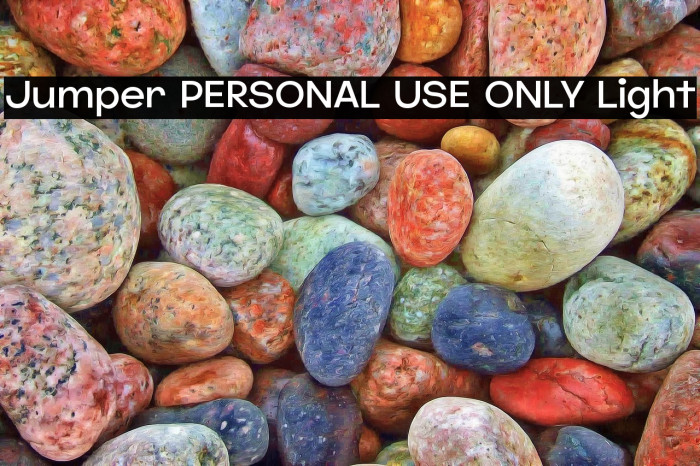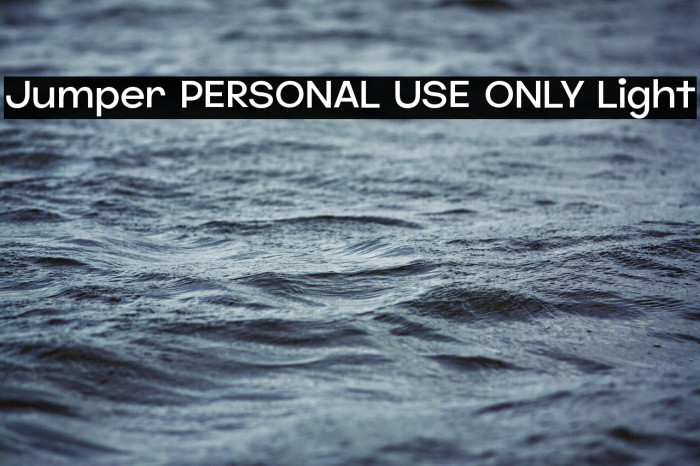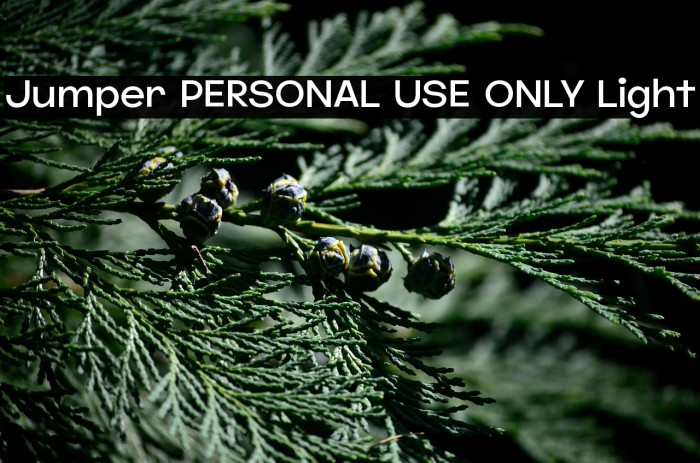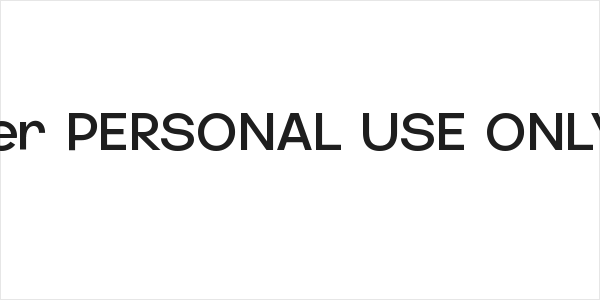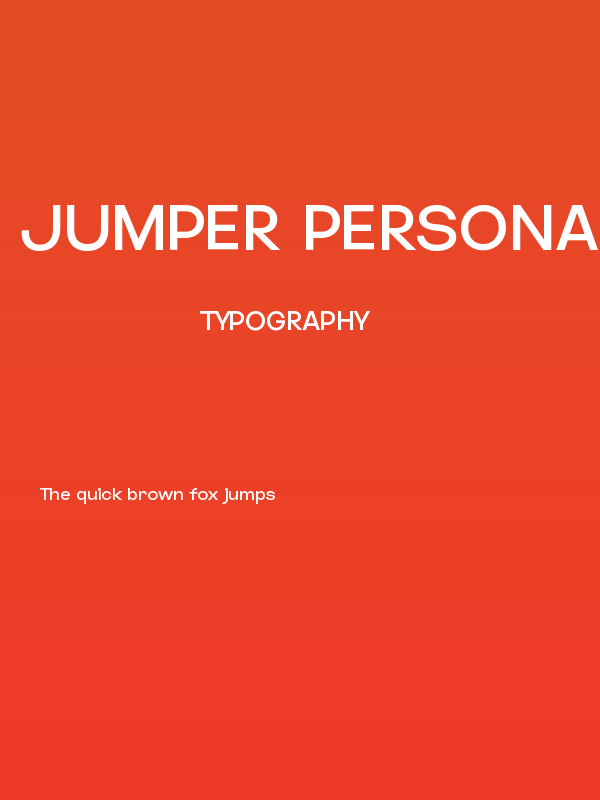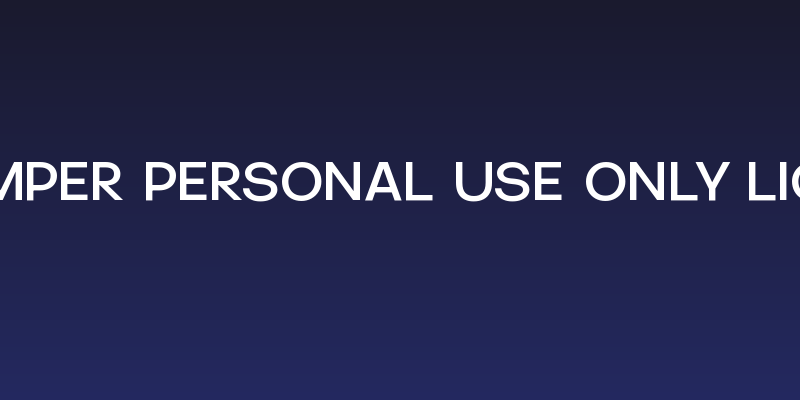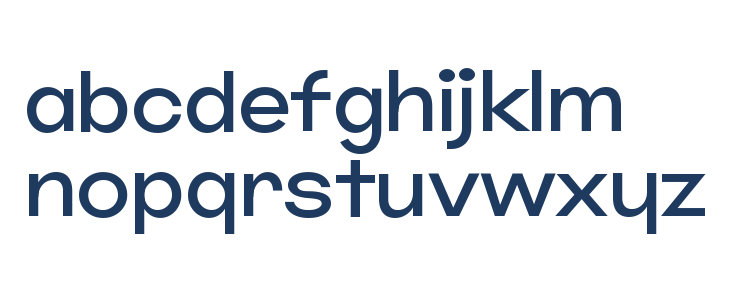
Jumper PERSONAL USE ONLY Light Font
Jumper PERSONAL USE ONLY Light Description
This font features a clean and modern sans-serif style with a uniform stroke width, giving it a sleek and contemporary appearance. The characters are well-proportioned, with a slight geometric influence that enhances readability. The uppercase letters are bold and commanding, while the lowercase letters maintain a friendly and approachable feel. The numerals are clear and distinct, making them suitable for various applications. Special characters are included, providing versatility for different design needs. Overall, this font exudes a professional and polished look, ideal for both digital and print media.